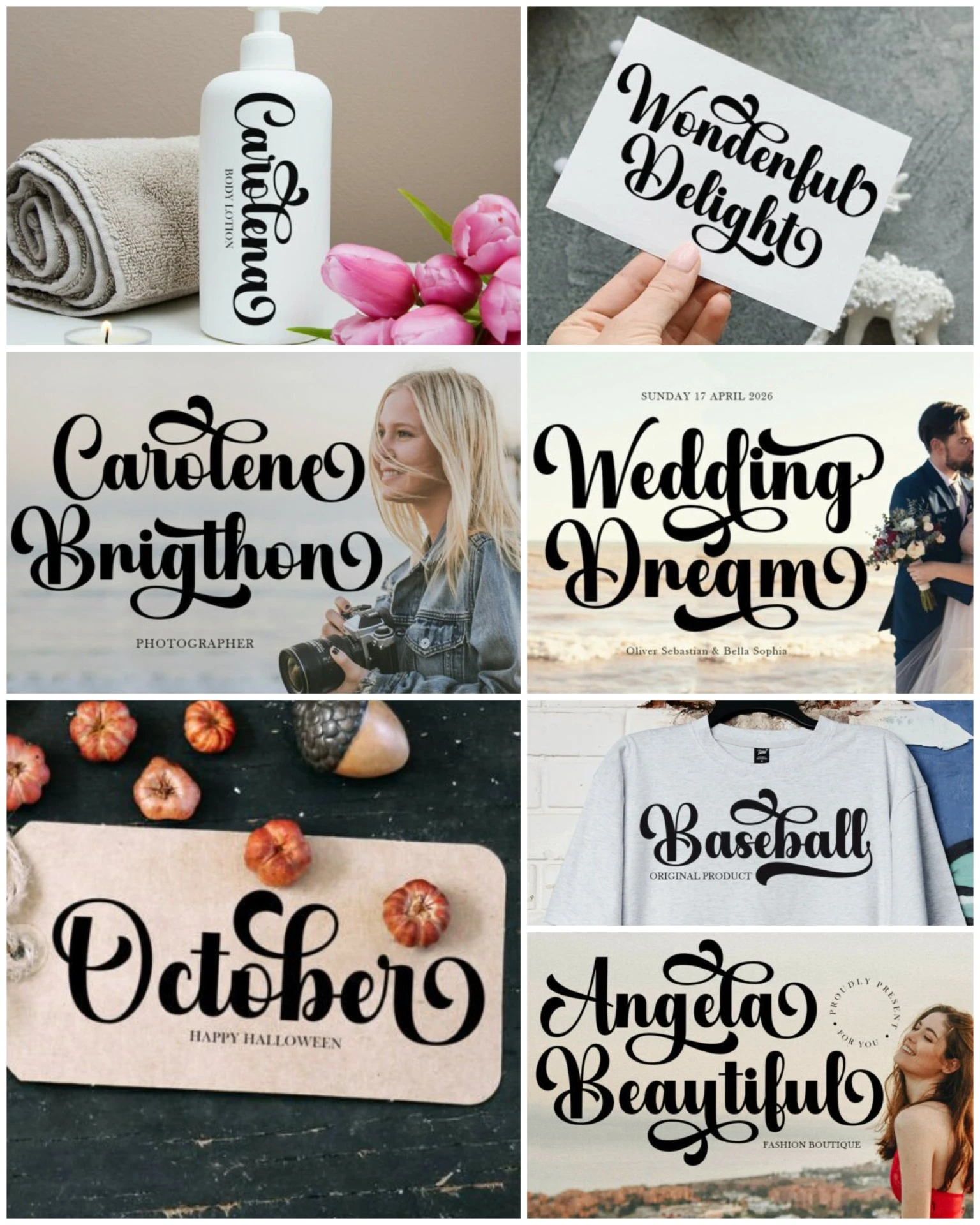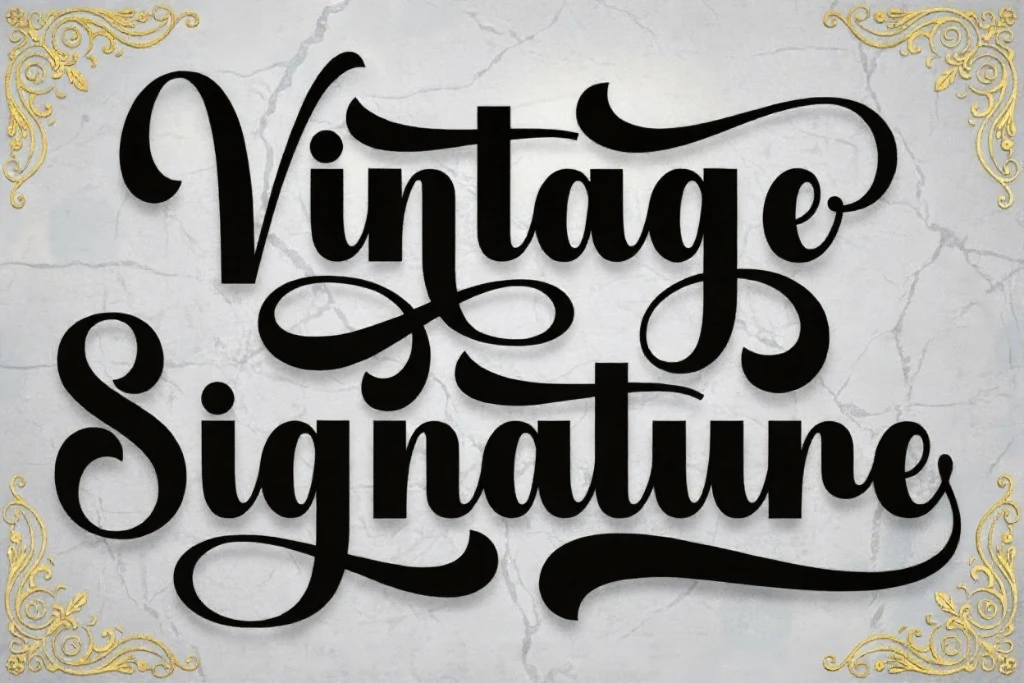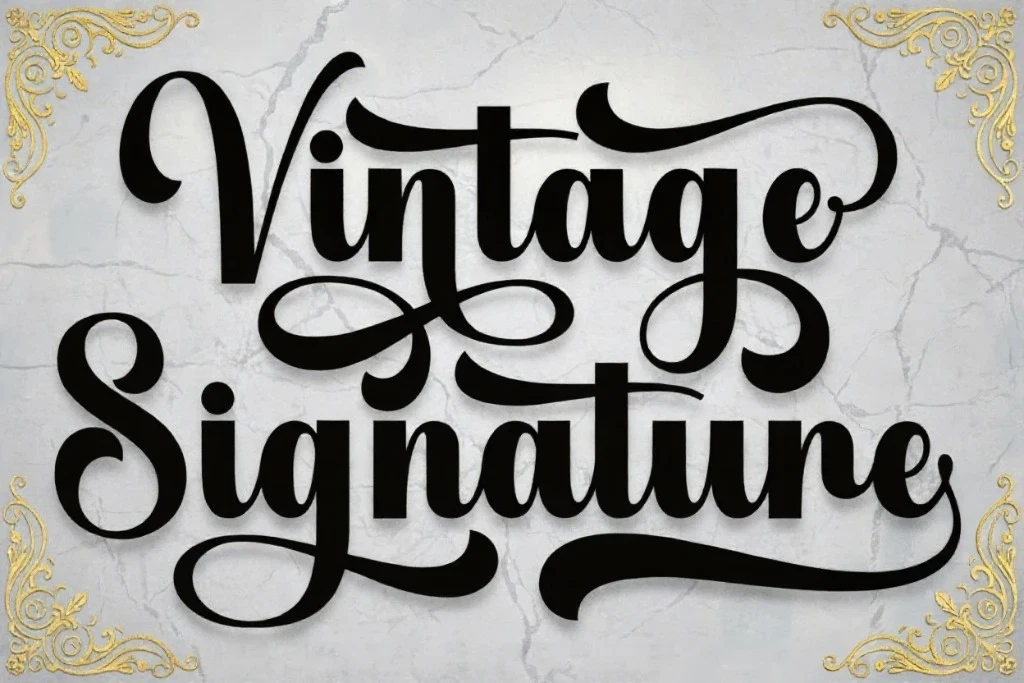
Experience classic elegance with Vintage Signature Font, a refined luxury calligraphy typeface that embodies timeless beauty and artistic grace. Each curve flows naturally, creating the perfect balance between sophistication and creativity.
Ideal for weddings, boutique branding, fashion labels, invitations, and editorial layouts, Vintage Signature transforms any text into a statement of style. Its soft calligraphic touch and graceful rhythm make it the go-to choice for designers seeking elegance, femininity, and premium quality.